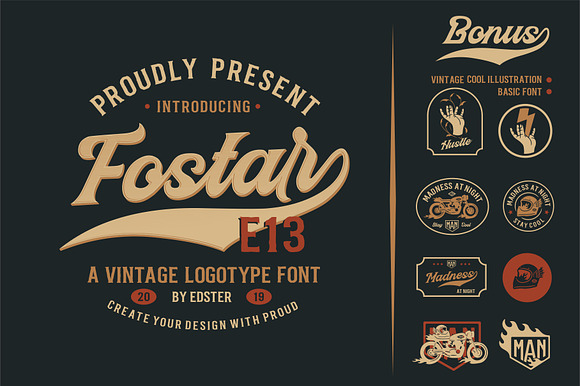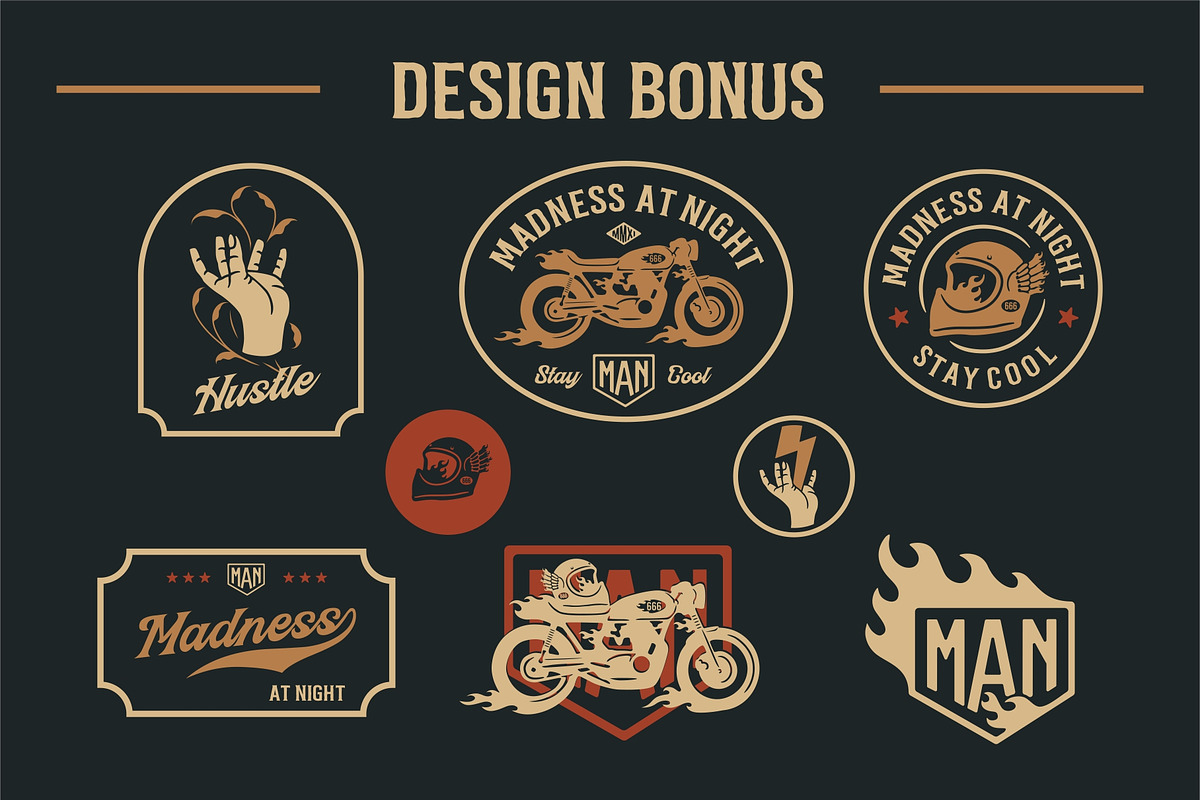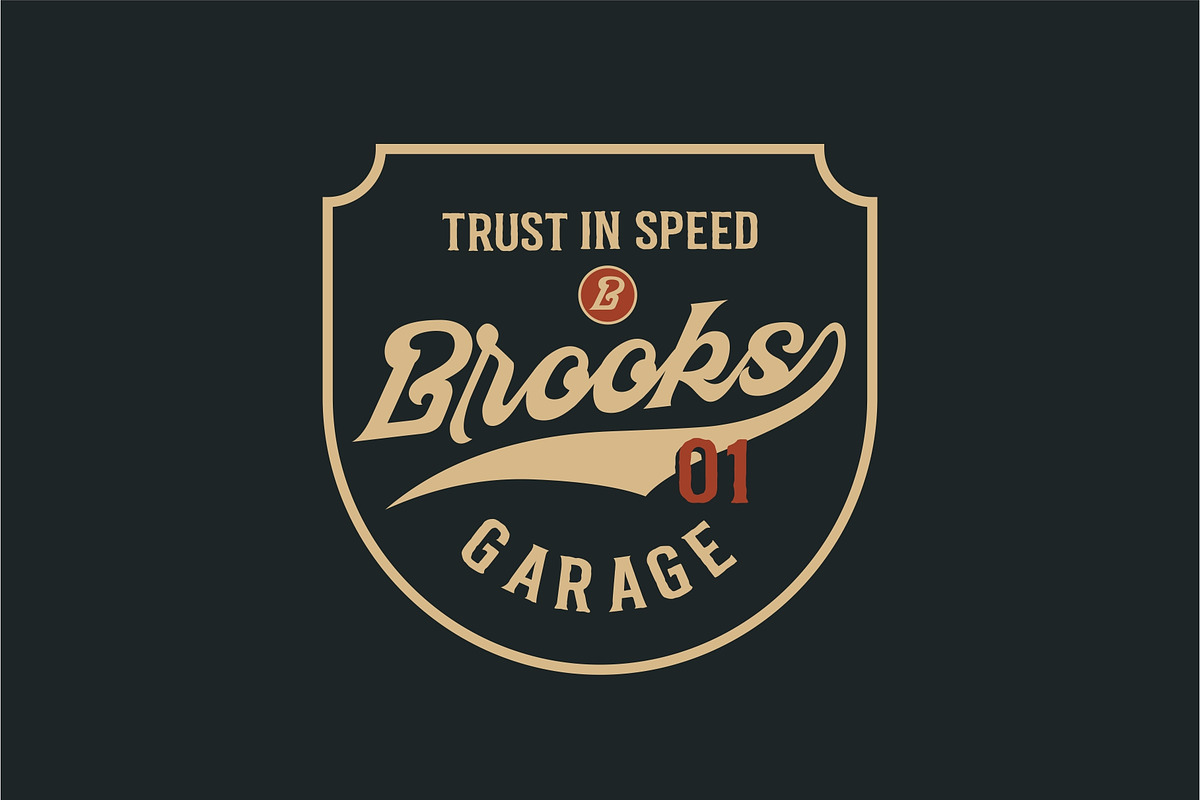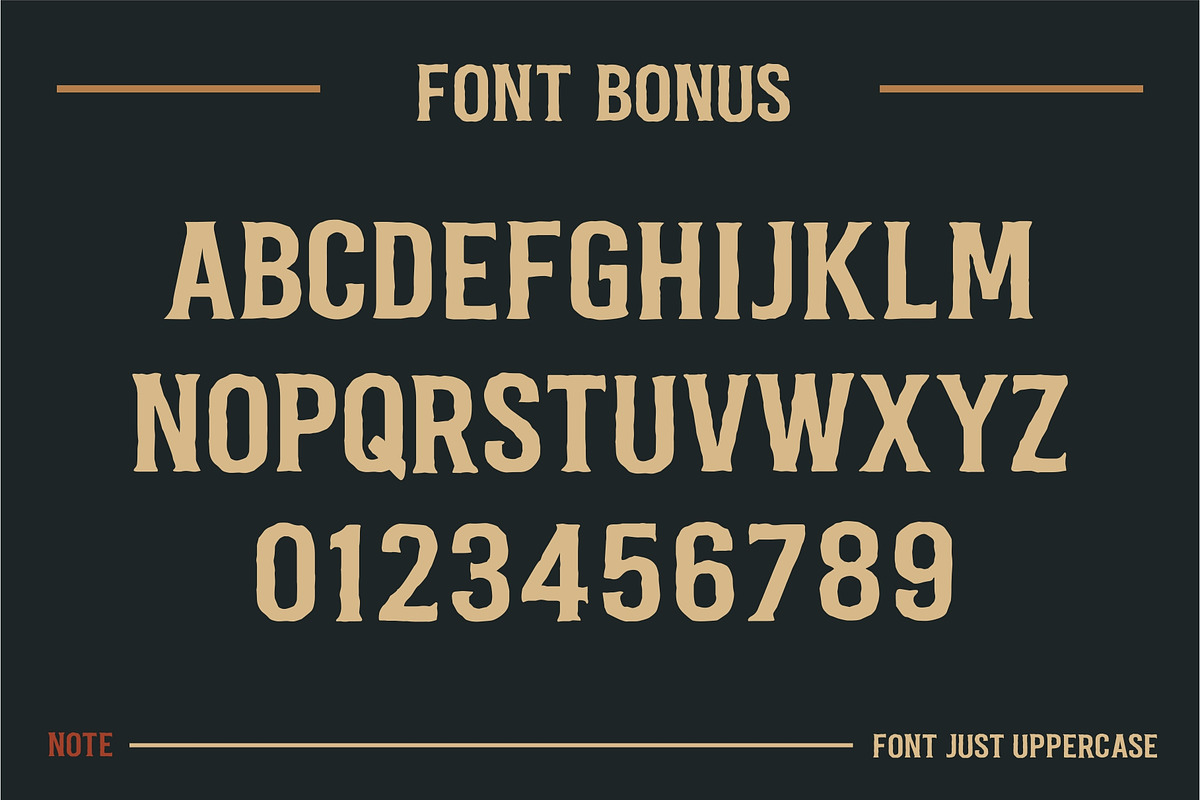
Fostar Vintage Font
It's released now! A modern vintage font called Fostar. This font is created by combining various scripts and serif fonts with parts that are not too excessive and authentic. You can use this font for logo (custom, clothing, etc) and shirt designs or other merchandise needs. There are also bonus illustrations and cool vintage fonts and illustrations can be edited.
Why Fostar Vintage Font is worth a look
Fostar Vintage Font by Edsterr fits naturally into Branding, posters, packaging, typography.